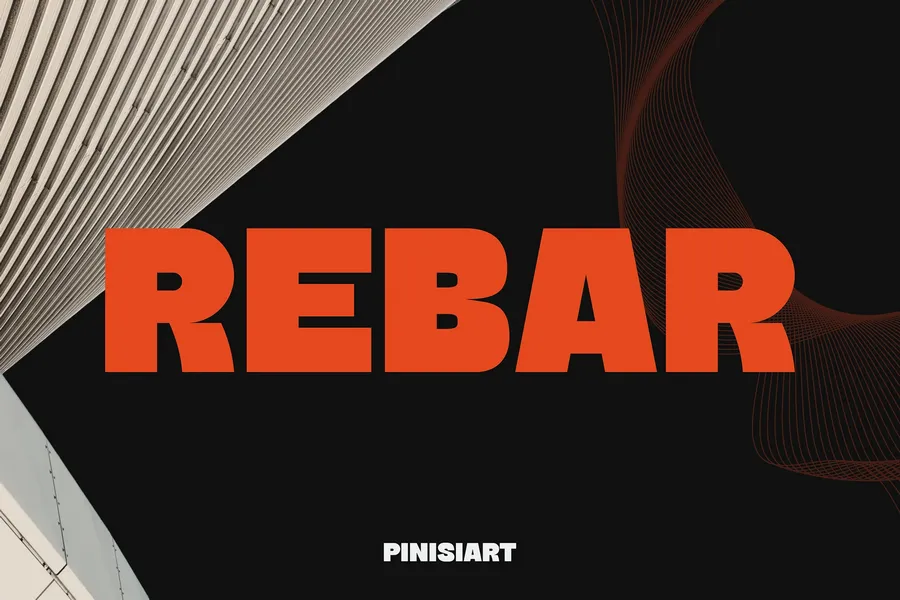
Rebar – Geometric Industrial Font
REBAR Geometric Brutalist Font for Architecture, Tech, and Visual Design
REBAR is a bold geometric display font inspired by industrial structure and brutalist aesthetics. With strong verticals, tight proportions, and sharp terminals, REBAR delivers clarity and power in every glyph. Its architectural edge and high contrast shapes lend a rugged yet refined visual tone—perfect for designers seeking confidence and clarity in structural or visionary layouts.
Whether you’re crafting an editorial headline, a branding identity for a modern architecture firm, or a poster that needs to dominate from a distance, REBAR thrives in bold spaces. It is loud without being chaotic—intentional, assertive, and made for serious impact.
REBAR fits naturally into markets that demand strength, alignment, and futuristic appeal. Ideal for branding, architecture magazines, UI headers, construction-themed posters, and contemporary product packaging, it’s the go-to font when you need to communicate resilience, vision, and design integrity. Its presence commands attention—built for makers of strong brands and sharp content.
Key Features :
Heavy geometric forms with strong rhythm and proportion
Designed for clarity in large-scale use: headlines, signage, exhibition graphics
Evokes a brutalist, futuristic, and industrial tone without losing readability
Excellent for tech, architecture, or construction branding
All-caps optimized and versatile across grid-based design systems
If you’re a designer, architect, creative director, or startup brand builder—this font was made to carry your message forward.